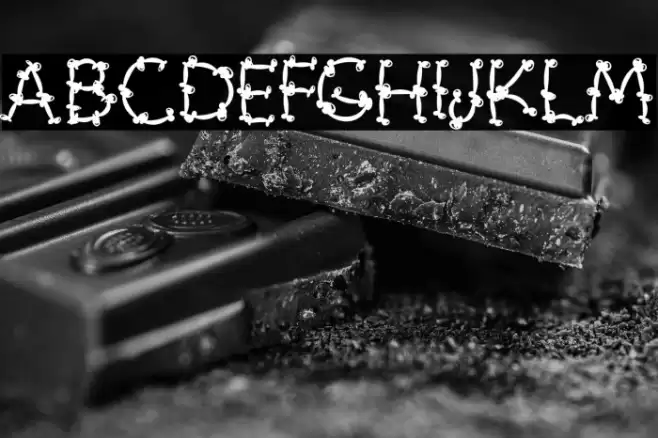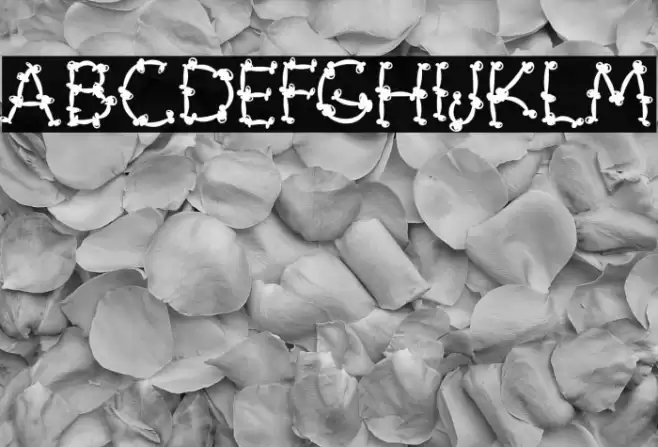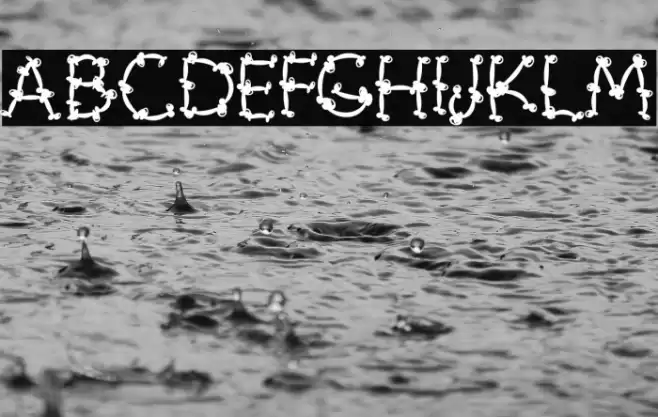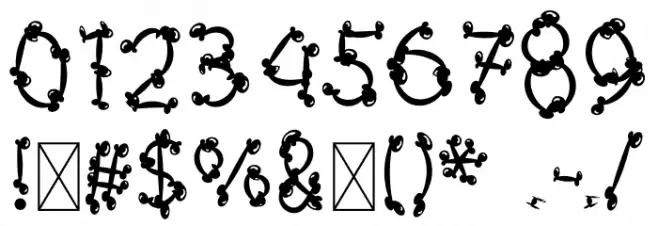
Cute Bones Font
Cute Bones Description
This playful and whimsical font features characters constructed from bone-like shapes, giving it a unique and quirky appearance. The letters are formed with interconnected segments resembling bones, creating a skeletal aesthetic that is both fun and eye-catching. The font maintains a consistent structure across uppercase and lowercase letters, as well as numbers and special characters, ensuring readability while maintaining its distinctive style. The playful nature of the design makes it ideal for creative projects that require a touch of humor or a Halloween theme.
A playful, bone-themed font with a quirky and whimsical design from Uncategorized fonts.
- Font: Cute Bones
- Proposed Projects: Ideal for Halloween-themed designs, children's party invitations, playful branding, and creative posters.